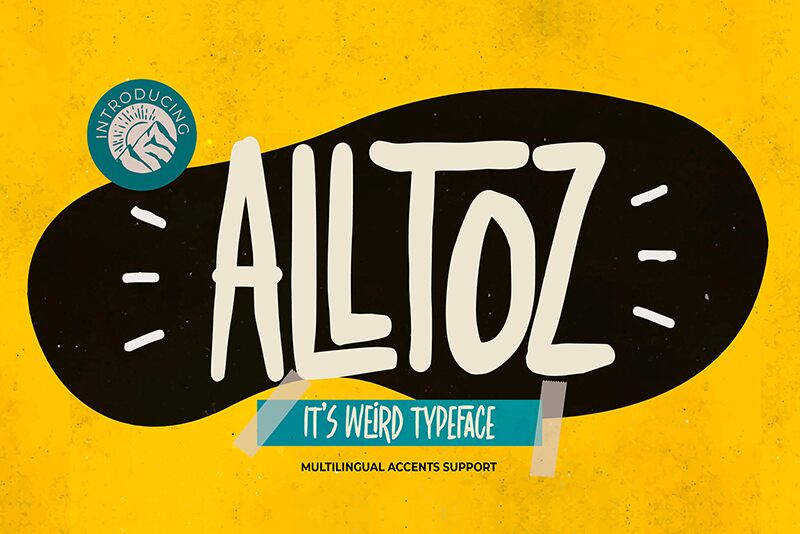
alltoz
Meet Alltoz, a handwritten gem from the creative mind at Gassstype. This semi-light, condensed typeface blends the spontaneity of quick pen strokes with the precision of digital vector art. Crafted with the modern Procreate tool, Alltoz carries an authentic coolness that captures a natural look rarely found in digital fonts. Its unique 'Weird Typeface' flair makes it a standout choice for designers seeking to infuse personality and originality into their projects.
With its distinct style, Alltoz is poised to elevate branding materials, editorial content, and advertising campaigns. Whether it's fashion labels looking for an edgy script or indie publications desiring a touch of individuality, Alltoz promises to be as versatile as it is strikingly unusual. Embrace the allure of this one-of-a-kind typeface and let your creative endeavors shine.